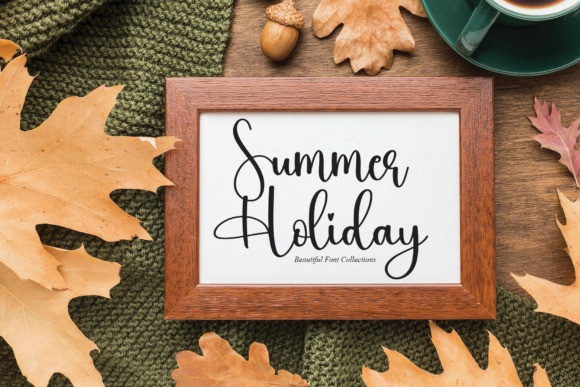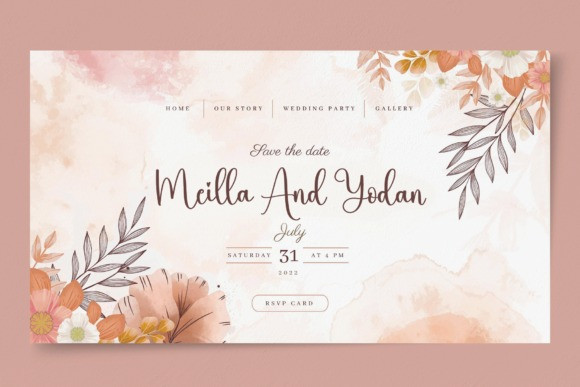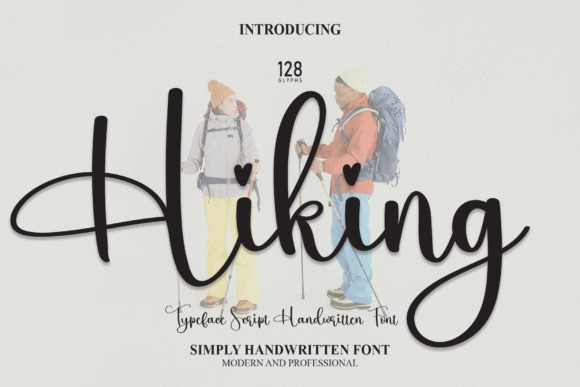
Hiking Font
Hiking Font letters are perfect for wall displays, wedding invitations, social media post logos, advertisements, product packaging, product designs, labels, photography, watermarks, invitations, stationery, and any project that requires a romantic handwritten taste.